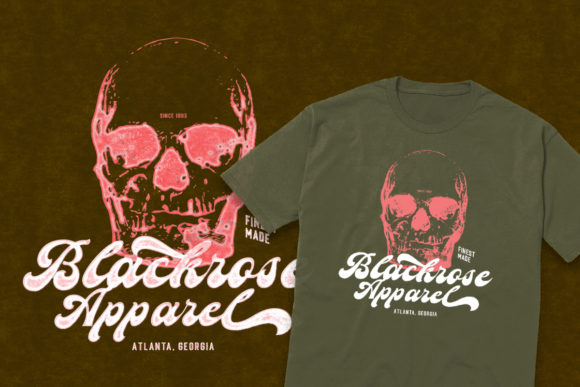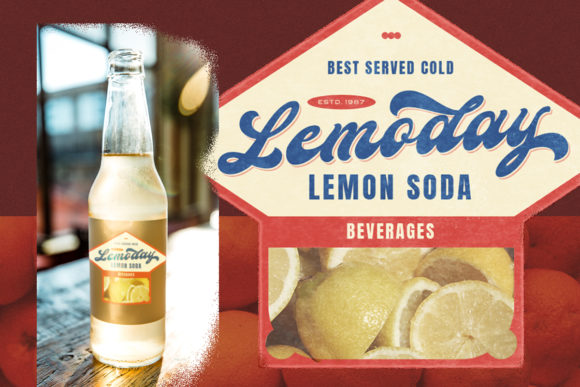
Bouldster Font
db-ku.com - Script & Handwritten -- Bouldster is a ravishing and daring handwritten font, crafted to give your headlines and logotype projects a stylish touch. This font reads as strong, confident, and dynamic and can add tons of nostalgic character to your designs.